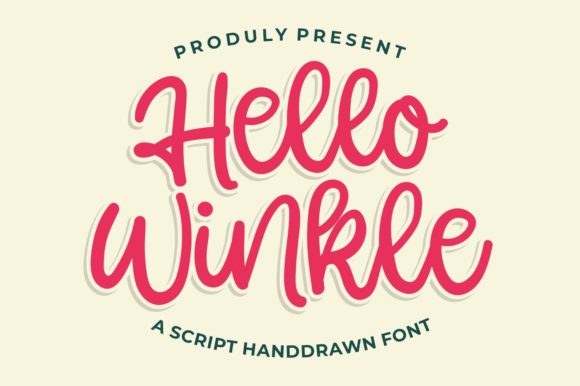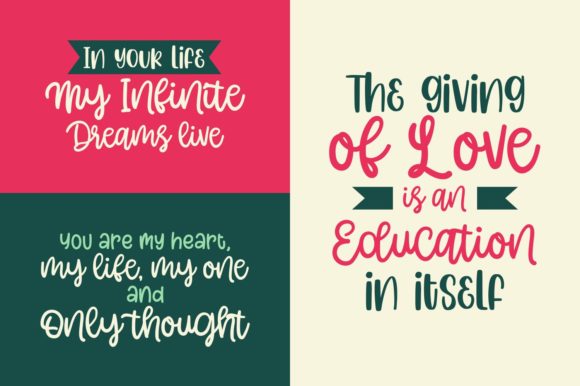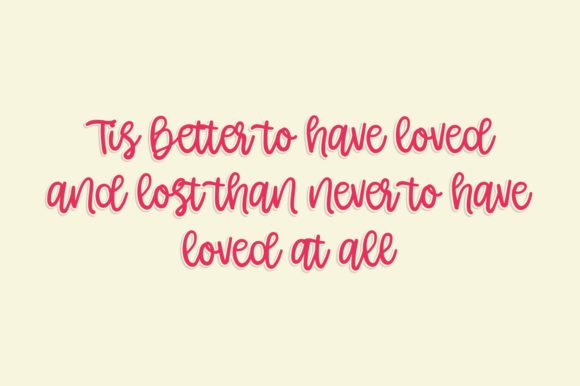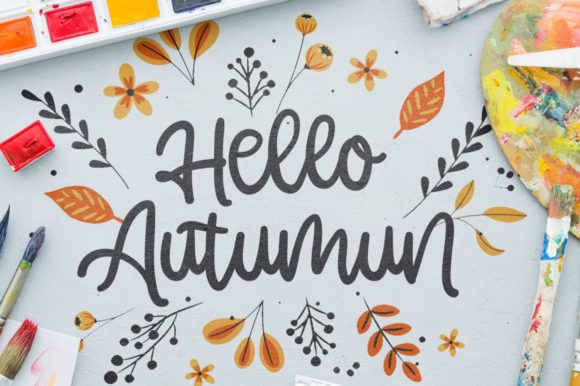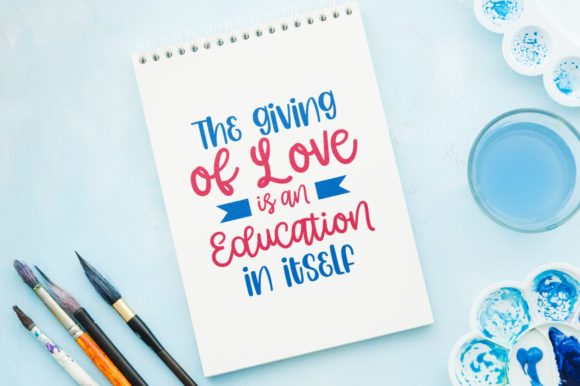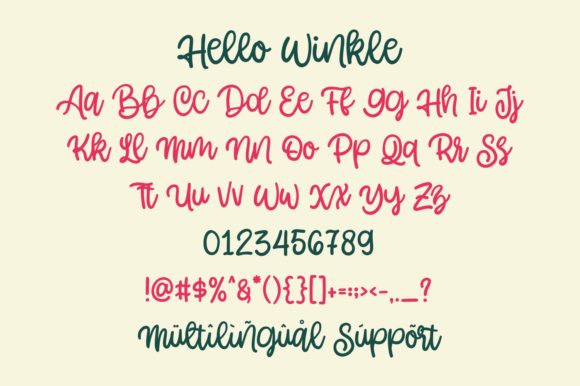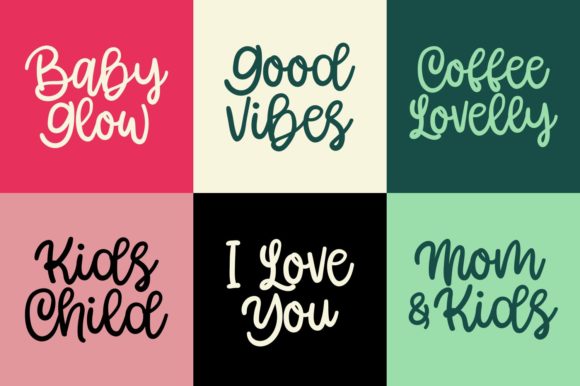
Hello Winkle Font
About Hello Winkle Font
Hello Winkle is a sweet, soft hand-lettered script font. The playful rounded characters make it the perfect font for creating stunning designs. Get inspired by its authentic feel and use it to create gorgeous wedding invitations, beautiful stationary art, eye-catching social media posts, and cute greeting cards.